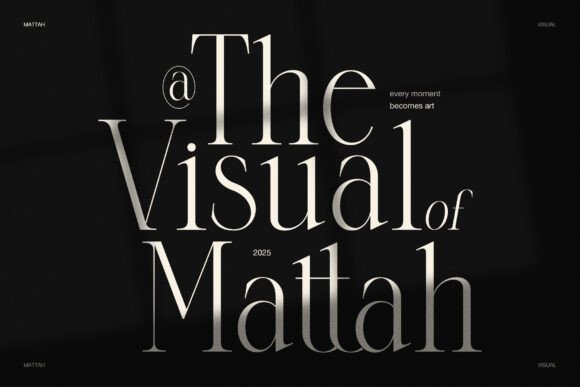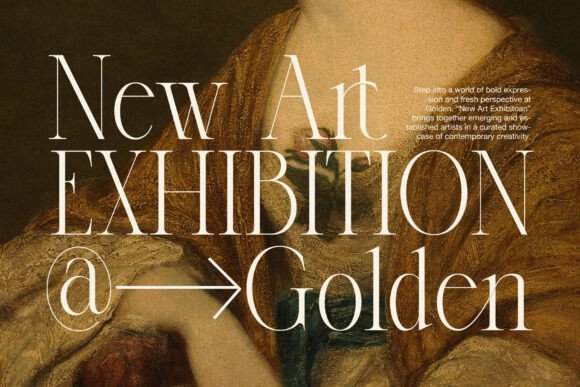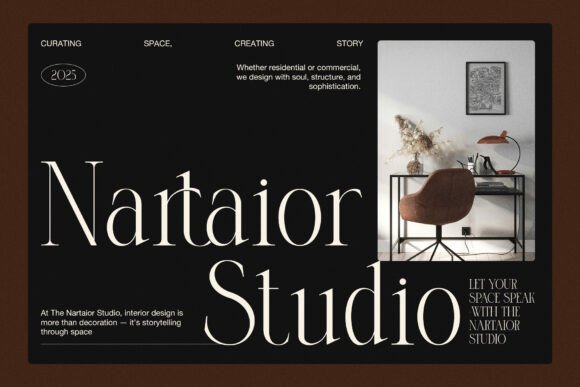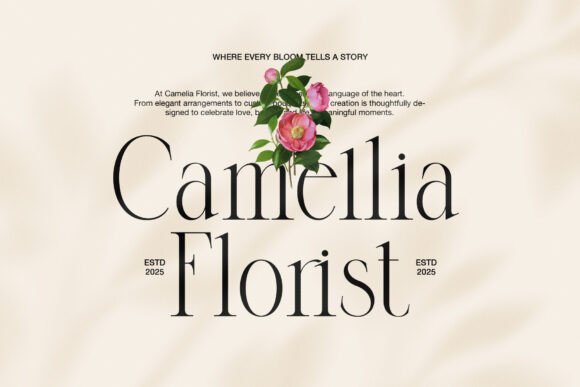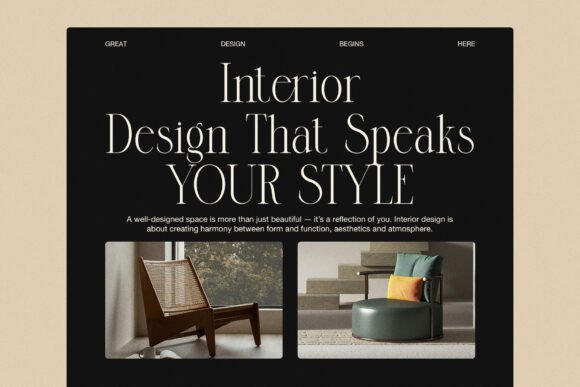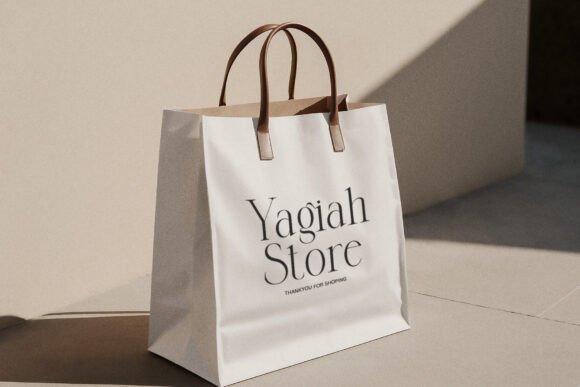
Introducing Dringko Elegant Serif Font: Elevate Your Designs with Timeless Sophistication
In the world of typography, a font can make all the difference in capturing the essence of a brand or design. For those seeking a touch of elegance and modern sophistication, the Dringko Elegant Serif Font is an exceptional choice. This beautiful serif font is designed to captivate and bring a unique charm to any project, balancing refinement with a touch of contemporary flair.
The Essence of Dringko: A Perfect Blend of Style and Versatility
Dringko’s design is characterized by its graceful serifs and carefully crafted letterforms, making it the ideal choice for creating luxury logos, high-end branding, and elegant website designs. Its stylish presence effortlessly enhances visual impact, making it shine in various applications such as magazines, advertisements, and product packaging. The font’s versatility allows it to excel across a variety of creative platforms, from boutiques and fashion brands to digital content and print layouts.
Unleash Your Creativity with Dringko’s Distinct Style
The Dringko font boasts a distinct, yet readable style that ensures it stands out while maintaining a polished, professional aesthetic. This makes it an excellent choice for designers and crafters looking to create a lasting impression. Whether you’re designing for a food business, a boutique e-commerce site, or any brand aiming to elevate its visual identity, Dringko brings an element of grace and sophistication.
Key Features of Dringko Elegant Serif Font
• Elegant Serif Design: Dringko’s serifs add a touch of refinement and luxury to any project.
• Modern Sophistication: The font balances traditional elegance with a contemporary flair.
• Versatility: Dringko excels in various applications, from digital content to print layouts.
• Readability: The font’s carefully crafted letterforms ensure readability and legibility.
• Professional Aesthetic: Dringko’s distinct style maintains a polished, professional look.
Applications of Dringko: Bringing Elegance to Life
Dringko’s versatility makes it suitable for a wide range of applications, including:
• Luxury Logos: Create a lasting impression with a sophisticated logo that embodies your brand’s essence.
• High-End Branding: Elevate your brand’s visual identity with Dringko’s elegant and refined style.
• Website Designs: Enhance your website’s aesthetic with a font that exudes modern sophistication.
• Magazines and Advertisements: Make a statement with Dringko’s stylish presence in print and digital media.
• Product Packaging: Add a touch of elegance to your product packaging and make it stand out.
Why Choose Dringko Elegant Serif Font?
Dringko offers a unique combination of style, versatility, and readability, making it an excellent choice for designers and crafters. With Dringko, you can:
• Elevate Your Designs: Add a touch of sophistication and elegance to your projects.
• Stand Out from the Crowd: Dringko’s distinct style ensures your designs make a lasting impression.
• Enhance Brand Identity: Create a cohesive visual identity that reflects your brand’s essence.
In conclusion, the Dringko Elegant Serif Font is an exceptional choice for designers and crafters seeking to add a touch of modern sophistication and timeless elegance to their projects. Its versatility, readability, and distinct style make it an excellent choice for a wide range of applications. Upgrade your designs with Dringko and experience the power of elegant typography.